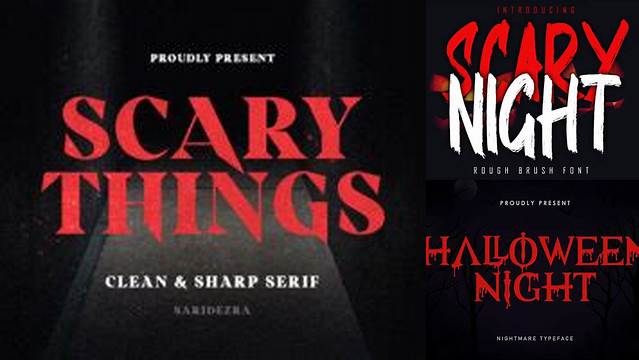
Spooky Fonts: Terrifying Typefaces For Photoshop
Unleash your inner ghoul with the most terrifying fonts Photoshop has to offer! If you're looking to add some serious scares to your designs, you've come to the right place. In this article, we'll delve into the world of horror fonts and how you can use them to create spine-chilling visuals. Get ready to explore a plethora of creepy typefaces that will make your audience scream⦠with delight!
Understanding Horror Fonts
Let's start with the basics. What exactly are horror fonts? Well, guys, they're not your typical Arial or Times New Roman. Horror fonts are designed to evoke feelings of fear, suspense, and unease. They often feature jagged edges, dripping effects, distorted shapes, and an overall sense of decay. Think of classic horror movie posters β those fonts are specifically chosen to set the mood and grab your attention. When choosing a horror font for your project, consider the overall tone you're aiming for. Are you going for a classic slasher vibe, or something more psychological and subtle? The right font can make all the difference in creating the desired impact. Many of these fonts are designed to be easily readable, even with their distressed look, but readability should always be a factor. The goal is to scare, not confuse!
Classic Horror Fonts
When we talk about classic horror fonts, we're diving into the typefaces that have defined the genre for decades. These fonts often have a vintage or retro feel, reminiscent of old horror movie posters and pulp magazines. One popular choice is a distressed, serif font with sharp, angular serifs. These fonts convey a sense of age and decay, perfect for creating a classic horror aesthetic. Another staple is the dripping font, which looks like the letters are melting or bleeding. This effect adds a visceral and unsettling element to your design. You'll often see these types of fonts used in titles and headings to immediately grab the viewer's attention. Think of the fonts used in early zombie films or haunted house attractions β they're classic horror fonts for a reason! Also, consider using a bold, sans-serif font with a slightly uneven or distorted appearance. This can create a sense of unease and instability, perfect for psychological horror themes. Don't be afraid to experiment with different combinations to find the perfect classic horror font for your project.
Modern Horror Fonts
While classic horror fonts have their charm, modern horror fonts offer a fresh and updated take on the genre. These fonts often incorporate contemporary design trends and techniques to create a more sophisticated and unsettling effect. You might find fonts with subtle distortions, glitch effects, or unusual letterforms that challenge the viewer's perception. Modern horror fonts can be particularly effective for projects that aim for a more psychological or surreal horror aesthetic. Think of the fonts used in modern horror video games or experimental films β they often push the boundaries of traditional typography. One trend in modern horror fonts is the use of extremely thin or extremely thick strokes, creating a sense of fragility or overwhelming dread. Another popular technique is to incorporate negative space in unexpected ways, making the letters appear fragmented or incomplete. These subtle details can add a lot of depth and complexity to your design. Ultimately, modern horror fonts offer a wide range of possibilities for creating a unique and terrifying visual experience.
Using Horror Fonts in Photoshop
Free Horror Fonts
Premium Horror Fonts
Horror Fonts for Posters
Posters are a fantastic medium for horror fonts to shine. Think about iconic horror movie posters β the font is often just as important as the imagery in setting the tone and drawing the viewer in. When designing a horror poster, the font should be bold, attention-grabbing, and reflective of the film's theme. For a classic slasher film, consider a dripping font or a distressed serif font with sharp edges. For a psychological thriller, a more subtle and unsettling font might be more appropriate. The font should also be legible from a distance, so choose a font size that is large enough to be easily read. Experiment with different font colors and effects to create a visually striking design. A common technique is to use a dark font on a light background, or vice versa, to create contrast and make the font stand out. You can also add shadows, glows, or textures to enhance the font's appearance. Remember to consider the overall composition of the poster and how the font interacts with other elements, such as images, logos, and taglines. A well-designed horror poster can be a powerful marketing tool, and the right font can make all the difference.
Horror Fonts for Book Covers
Just like with posters, horror fonts play a crucial role in designing book covers. The font on a horror book cover should immediately convey the genre and entice potential readers to pick up the book. Consider the target audience and the overall theme of the book when choosing a font. A gothic horror novel might benefit from an ornate, calligraphic font, while a modern horror thriller might call for a cleaner, more contemporary font. Readability is especially important on book covers, as the title needs to be easily legible even at a small size. Choose a font that is clear and concise, and avoid overly decorative or intricate fonts that might be difficult to read. Experiment with different font sizes, weights, and styles to create a visually appealing design. You can also use different fonts for the title and the author's name to create hierarchy and visual interest. Pay attention to the color and contrast of the font against the background. A dark font on a light background is generally the easiest to read, but you can also experiment with other color combinations to create a unique and eye-catching design. Ultimately, the font on a horror book cover should work in harmony with the imagery and overall design to create a compelling and memorable visual that attracts readers.
Horror Fonts for Websites
Incorporating horror fonts into your website design can add a unique and immersive experience for your visitors. However, it's important to use horror fonts judiciously and strategically to avoid overwhelming or confusing your audience. When choosing a horror font for your website, consider the overall tone and theme of your site. A horror-themed website might benefit from a bold, distressed font for headings and titles, while a more subtle horror site might opt for a cleaner, more understated font. Readability is crucial on websites, so choose a font that is easy to read on screen, especially for body text. Avoid overly decorative or intricate fonts that might strain the eyes of your visitors. Use horror fonts sparingly to highlight key elements, such as headings, titles, and call-to-actions. Avoid using horror fonts for large blocks of text, as this can make your website difficult to read and navigate. Experiment with different font sizes, colors, and styles to create a visually appealing and engaging design. You can also use CSS to add effects like shadows, glows, or textures to your fonts. Remember to test your website on different devices and browsers to ensure that the fonts display correctly. A well-designed website with strategically placed horror fonts can create a memorable and immersive experience for your visitors.
Comic Horror Fonts
Comic horror fonts blend the aesthetics of comic books and horror, creating a unique and playful visual style. These fonts often feature bold outlines, exaggerated shapes, and a sense of humor and exaggeration. Comic horror fonts are perfect for projects that aim for a lighthearted and campy horror aesthetic. Think of the fonts used in horror comic books, Halloween cartoons, and monster movie posters β they often convey a sense of fun and excitement. When choosing a comic horror font, consider the overall tone and theme of your project. A subtle comic touch can create a sense of playfulness without being too distracting, while a more exaggerated comic style can create a more dramatic and humorous effect. Pay attention to the readability of the font, as comic fonts can sometimes be difficult to read if the shapes are too distorted or the outlines are too thick. Choose a font that is still legible, especially for body text. Experiment with different font sizes, colors, and styles to create a visually appealing and playful design. You can also add effects like speech bubbles, action lines, and sound effects to enhance the comic horror aesthetic. Ultimately, comic horror fonts offer a unique and lighthearted way to add a touch of fun and excitement to your designs.